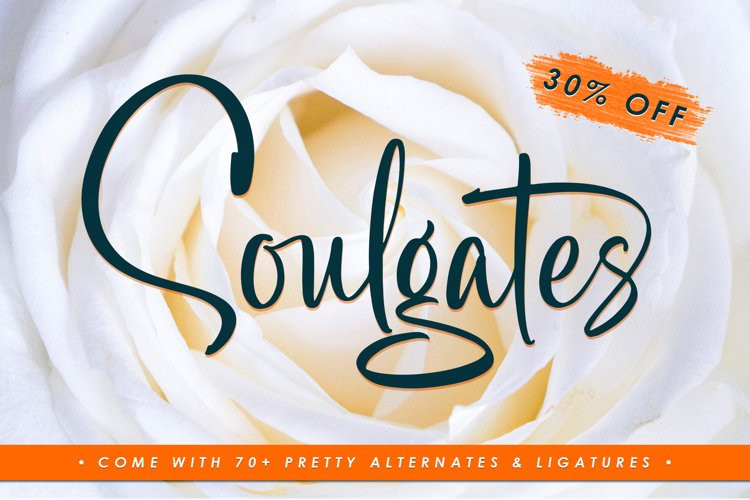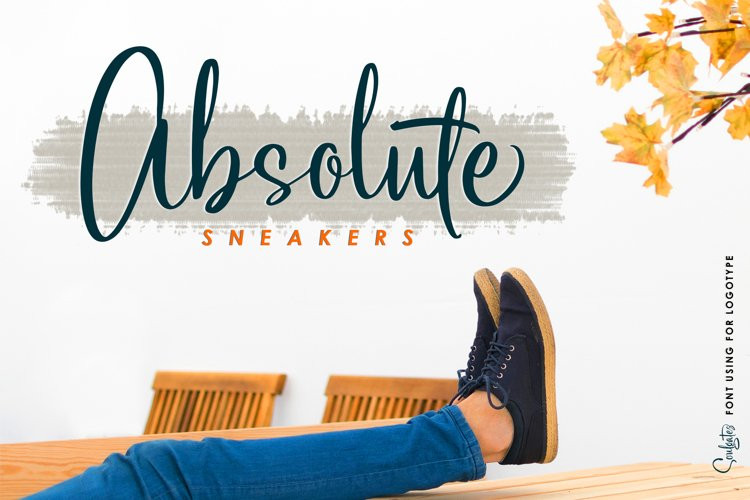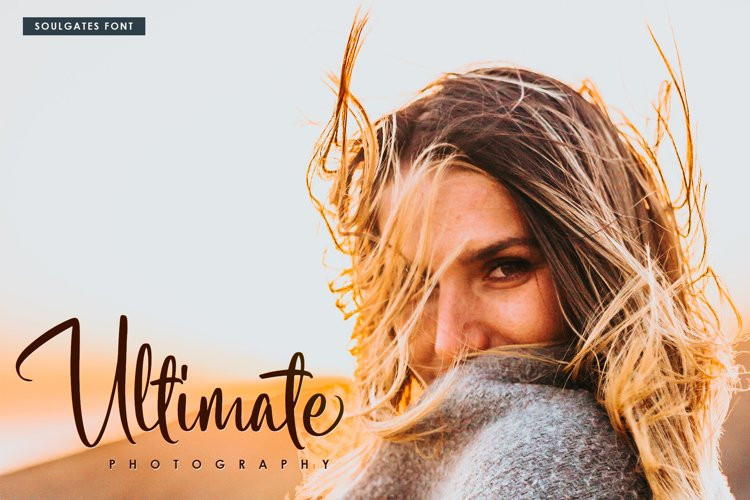
Soulgates Font
Introducing Soulgates – A new script font with pretty alternates and ligatures.
Soulgates is a brush script typeface that every single letter contains beautiful charater alternates. This font come with 70+ Ligatures, Contextual alternates, and Stylistic alternates. A classy font that will give your projects looks modern and unique.This font matches applies in some designs such as the logotype, brand, magazine, website or blog headlines, packaging, branding, qoutes, invitation cards, greeting cards, business cards, and wedding more.